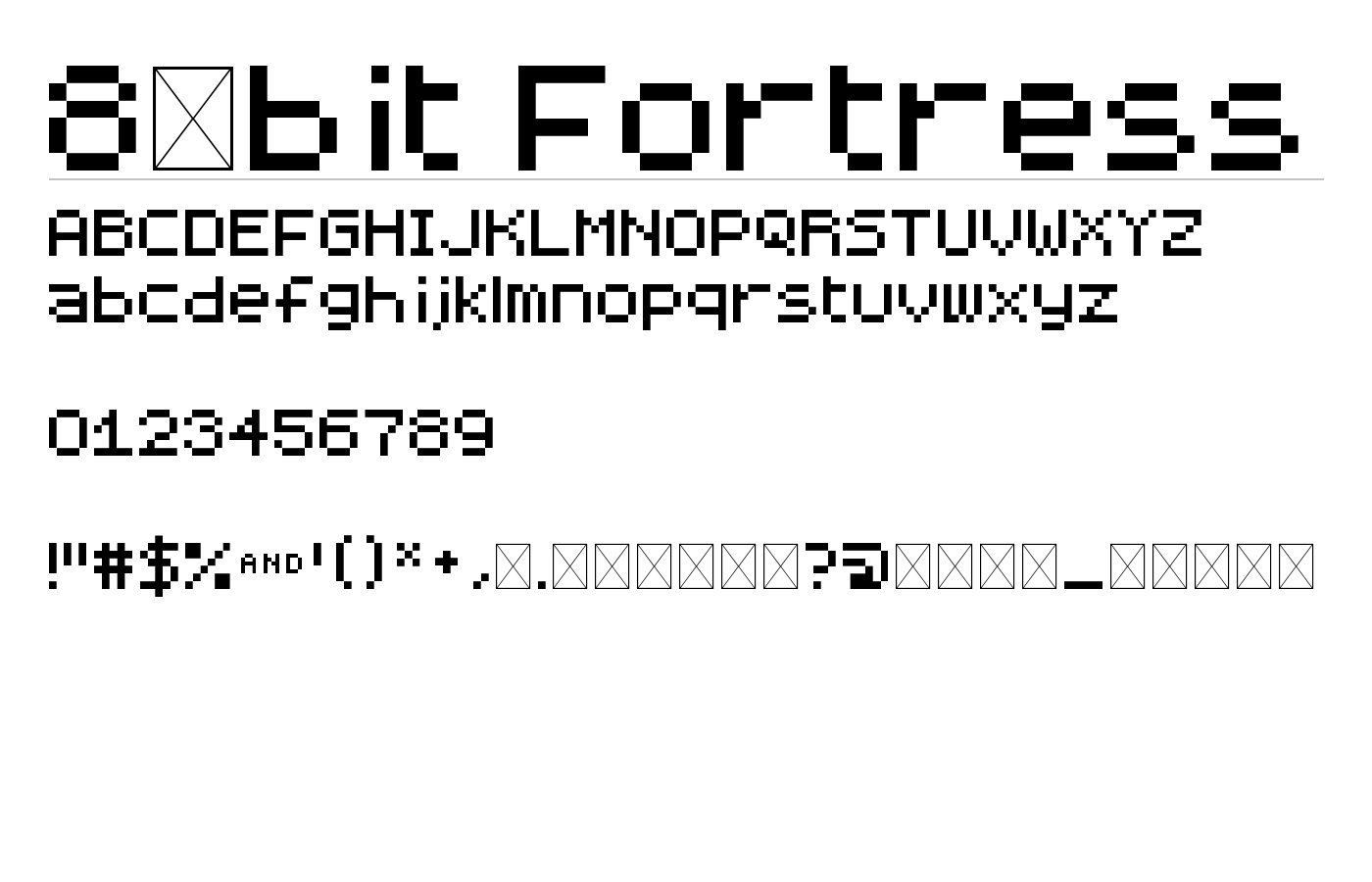
8-bit Fortress is a pixelated, sans serif font designed with a strong retro, digital vibe reminiscent of early video games and computer screens. Its monospaced, blocky letterforms with uniform weight and square edges convey a nostalgic, techy feel that works great for gaming, coding, or any vintage electronic-themed design. This font shines in pixel art projects, headlines, and creative digital interfaces where a playful yet structured look is desired.
8-bit Fortress Font
About 8-bit Fortress Font